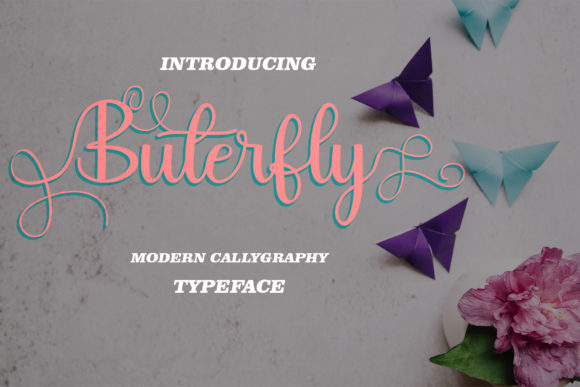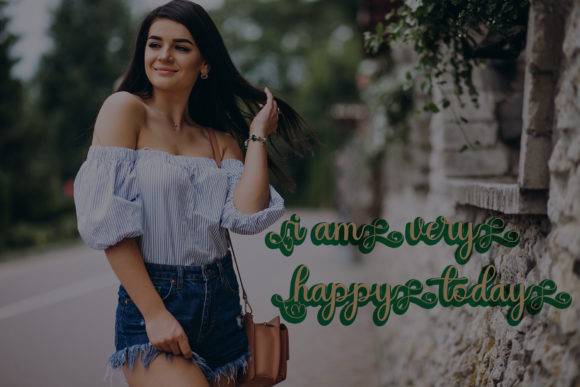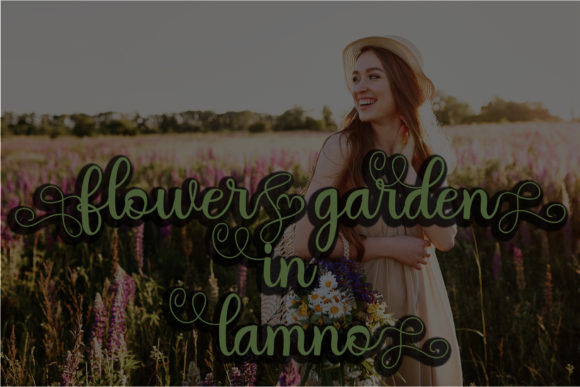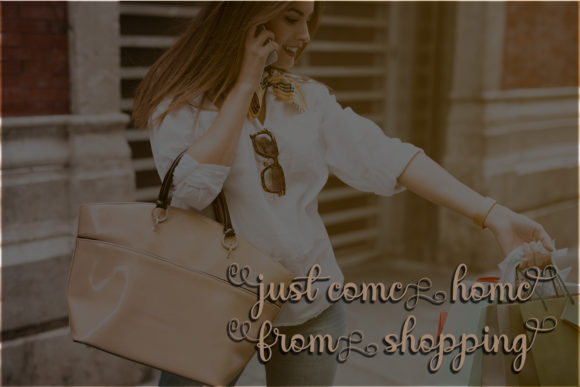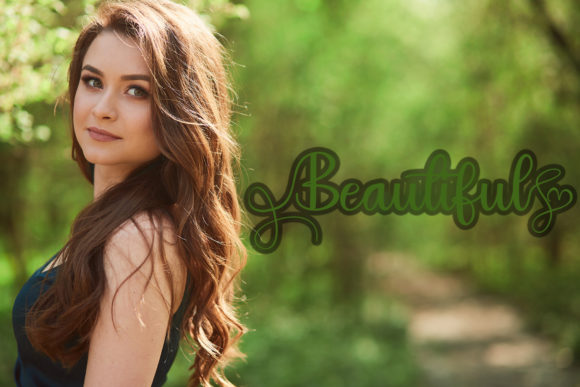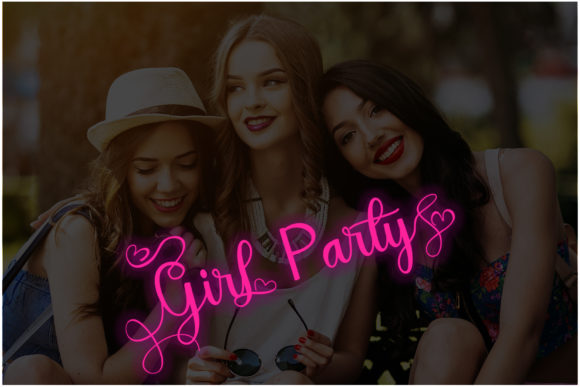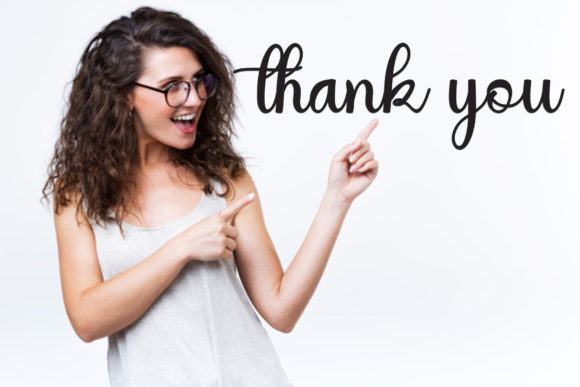
Buterfly Font
About Buterfly Font
The Buterfly is a modern calligraphy font. It was handwritten and includes a modern and unique form of calligraphy. It’s natural writing styles makes it the perfect font for adding a natural touch to your designs.